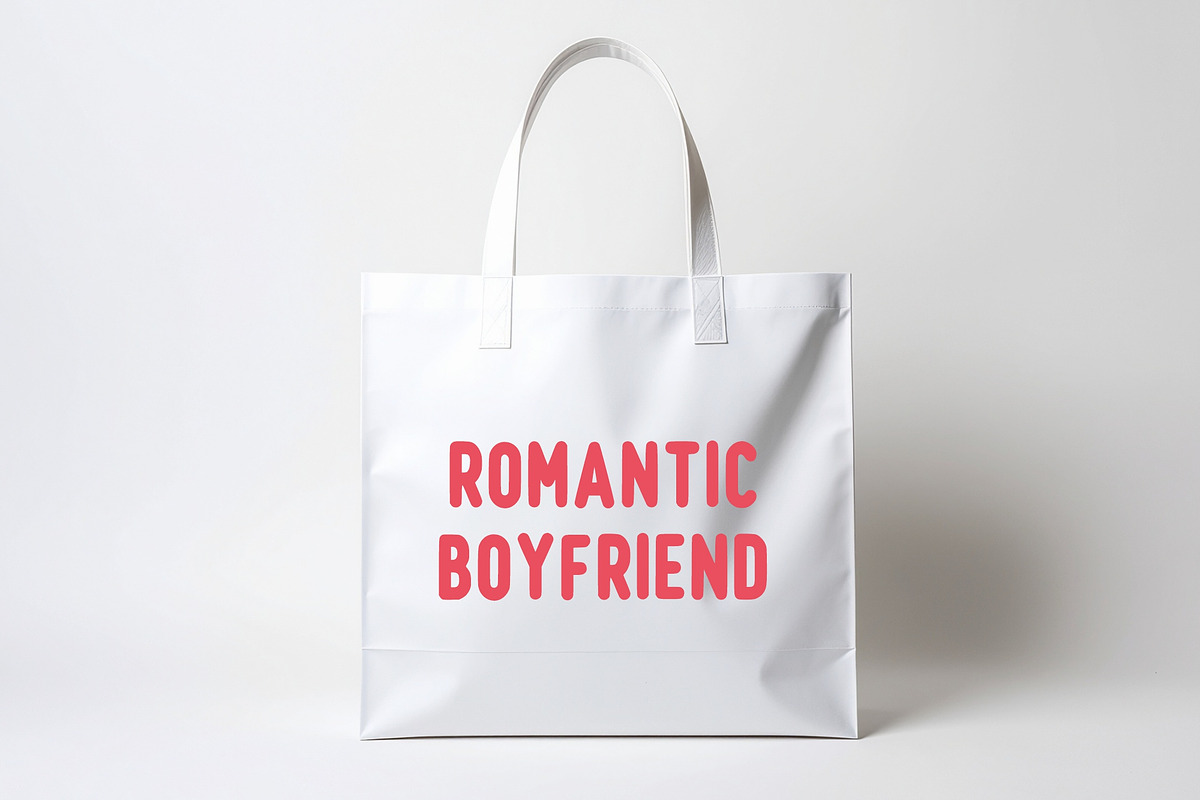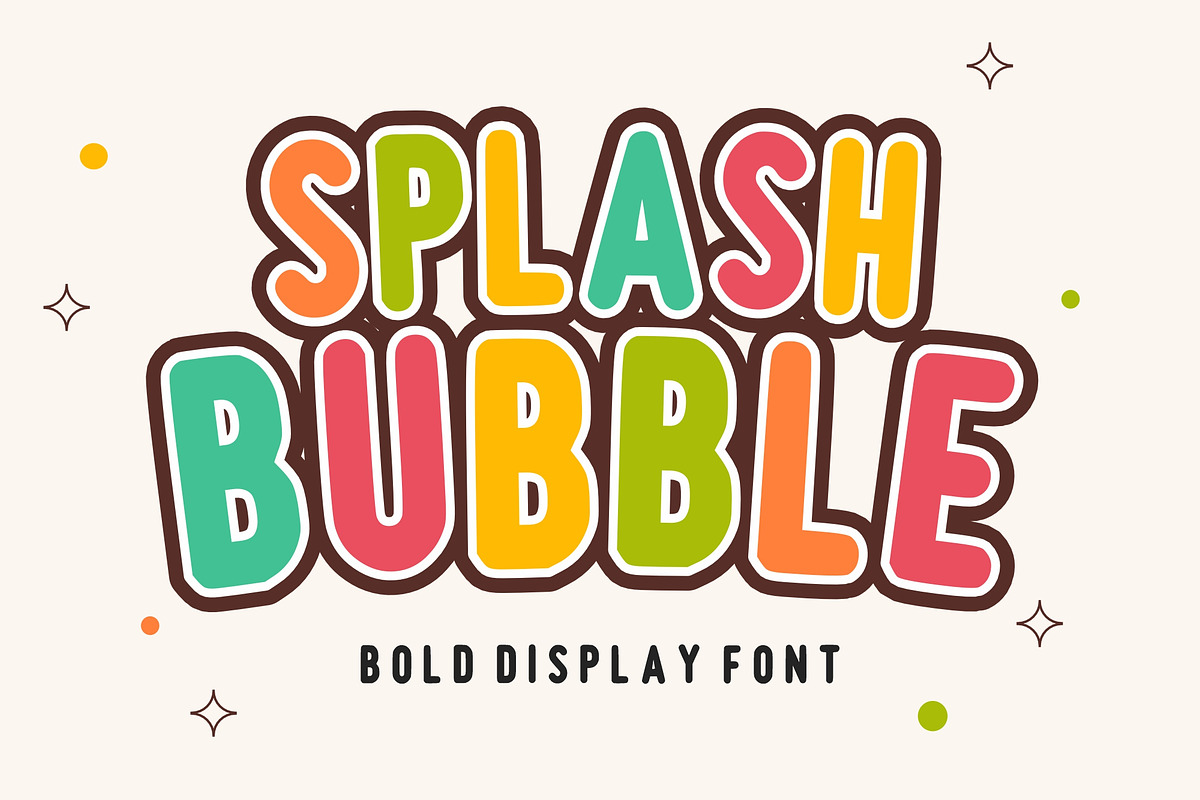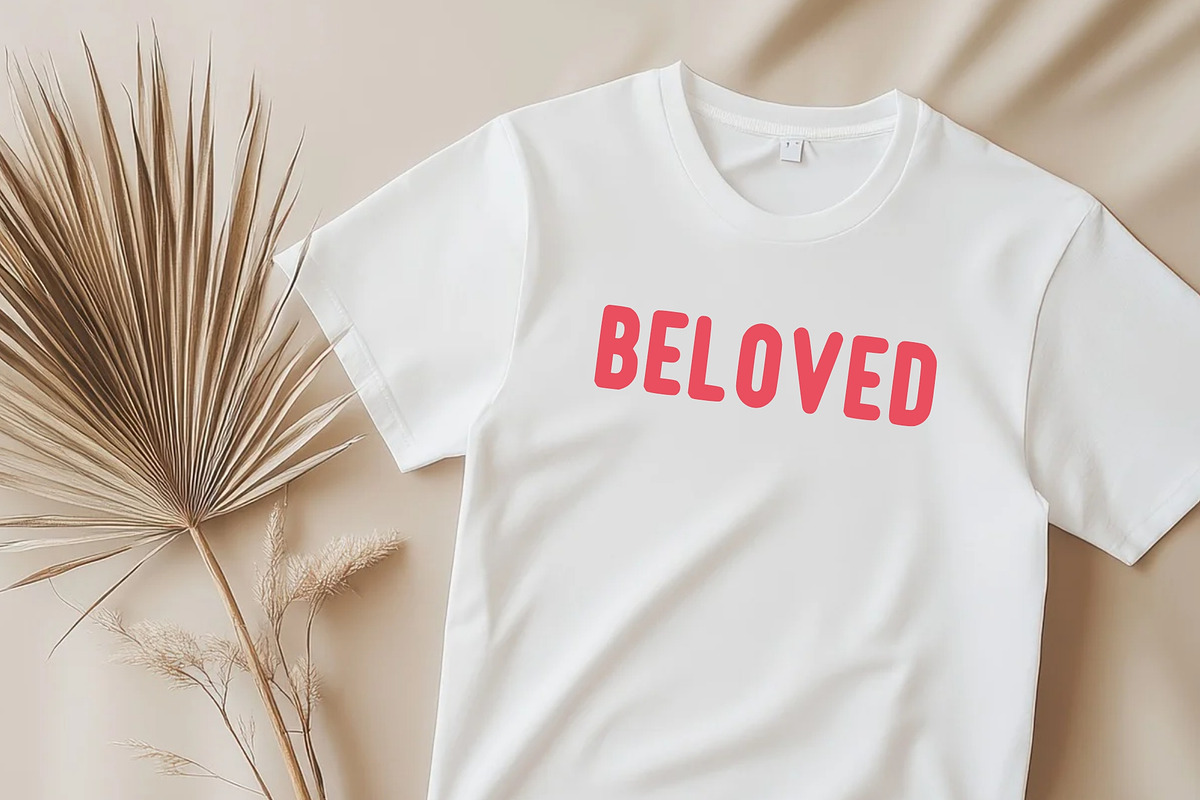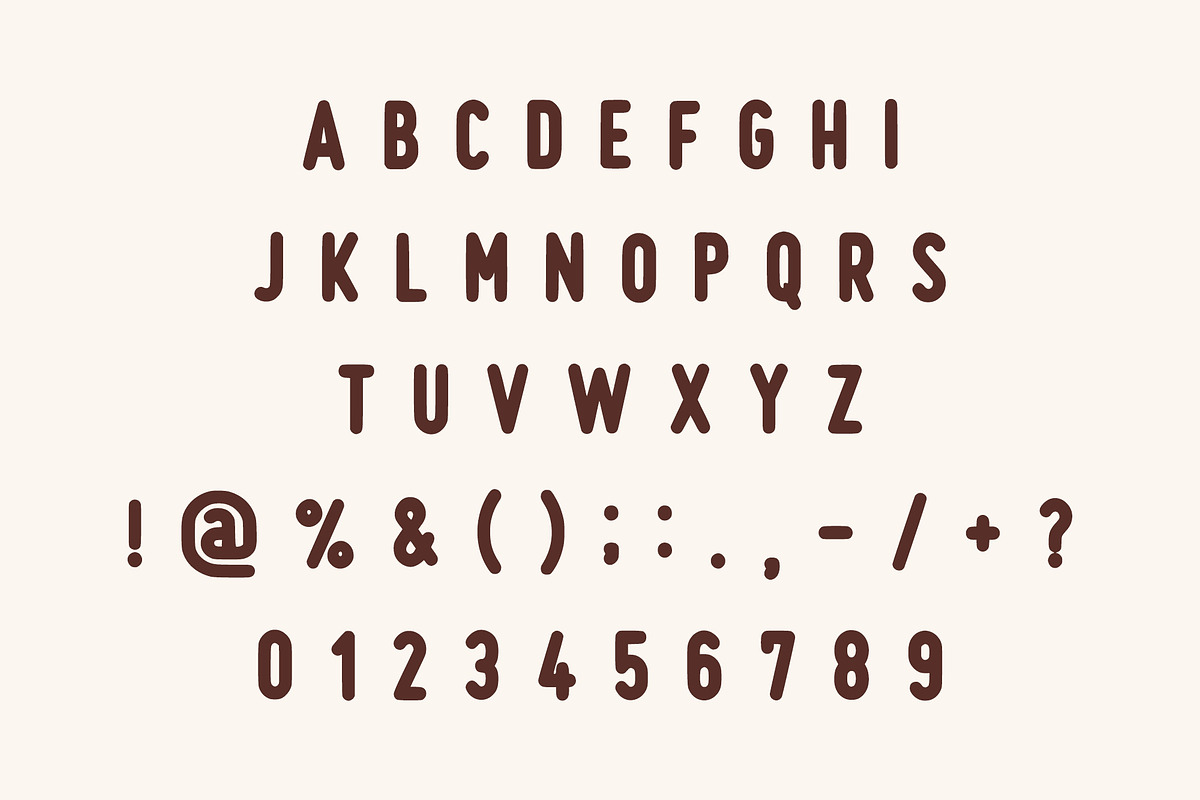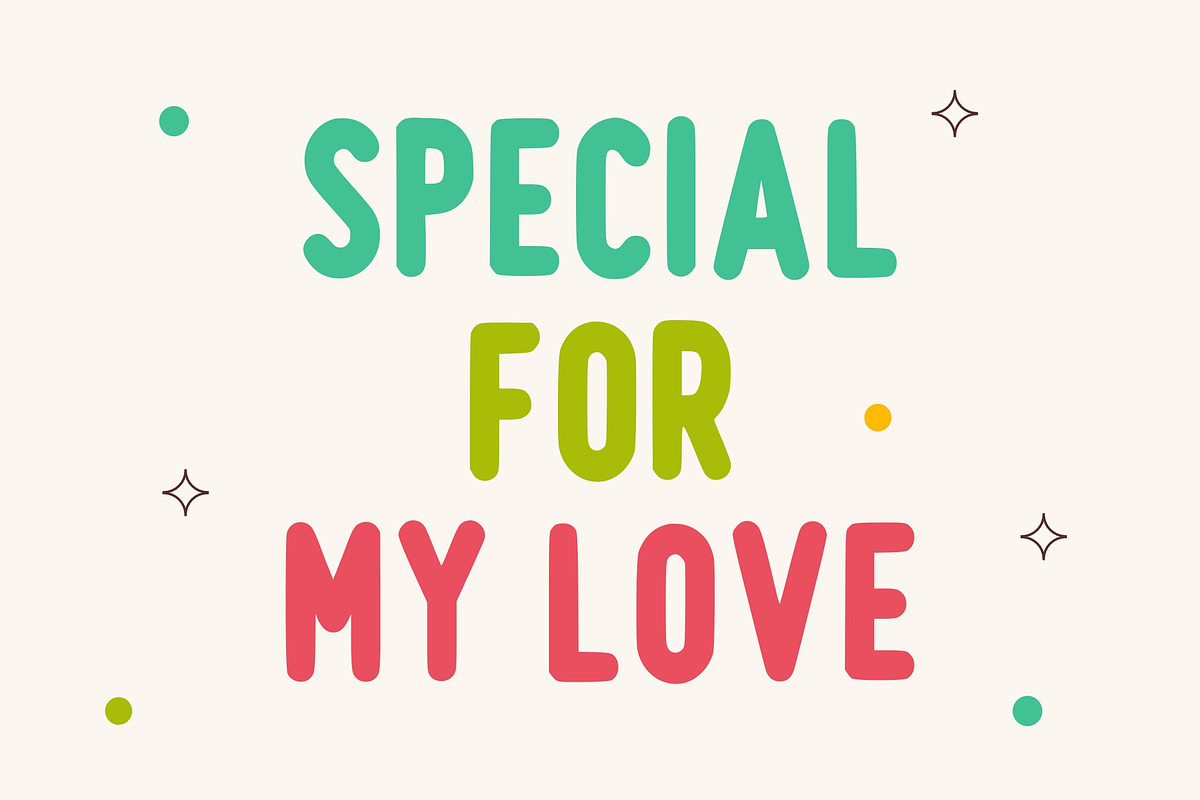
Splash Bubble
The typeface boasts exceptionally thick, rounded letterforms with absolutely no sharp edges, giving every character a bouncy, plush, and volumetric feel. This bubble-letter style is enhanced by its short ascenders and descenders, creating a compact, impactful visual block perfect for high-energy designs.